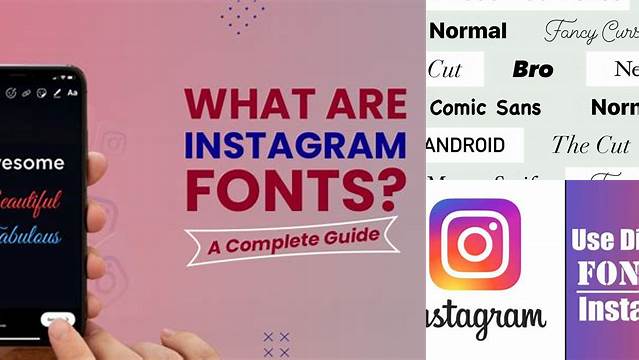
Cool Fonts & Symbols For Instagram: Ultimate Guide
Instagram is more than just photos; it's a whole vibe! And a big part of that vibe comes from how you present your text. Using cool fonts and symbols can really make your posts and stories pop. But let's be real, Instagram's built-in font options are kinda limited. That's where font generators and symbol keyboards come in clutch. In this guide, we will dive deep into the world of Instagram fonts and symbols, showing you how to spice up your profile and content.
Why Use Different Fonts and Symbols on Instagram?
Let's talk about why you should even bother changing up your fonts and adding symbols in the first place. In the crowded world of Instagram, standing out is key. Using unique fonts and symbols can grab attention and make your content more memorable. Think of it as adding your personal touch to everything you share.
Making Your Profile Stand Out
Your Instagram bio is like your digital handshake. It's often the first thing people see when they visit your profile. Using a stylish font can make your bio more eye-catching and give people a better sense of who you are. Imagine a sleek, modern font for a tech brand or a playful, cursive font for a lifestyle blogger. The right font can instantly communicate your brand's personality.
Enhancing Engagement
Fonts and symbols aren't just for looks; they can also boost engagement. Using different fonts in your captions can break up large blocks of text and make them more readable. Symbols can add visual interest and highlight important information. For example, you might use a star symbol to emphasize a key point or an arrow to direct people to a link in your bio. When your content is visually appealing and easy to read, people are more likely to engage with it.
Expressing Creativity
Instagram is all about creativity, and fonts and symbols are just another way to express yourself. Whether you're creating stories, writing captions, or designing highlights covers, using unique fonts and symbols can help you showcase your personal style. Don't be afraid to experiment and try new things. The more creative you are, the more you'll stand out from the crowd.
Top Font Generators for Instagram
Alright, let's get into the good stuff. Here are some of the best font generators you can use to create cool text for your Instagram profile and posts. These tools are super easy to use, and they offer a ton of different font options.
LingoJam
LingoJam is a classic choice for generating Instagram fonts. It's simple, straightforward, and offers a wide variety of fonts to choose from. Just type your text into the input box, and LingoJam will instantly generate a bunch of different font options. You can then copy and paste your favorite font into your Instagram bio, caption, or story.
Cool Font
Cool Font is another popular font generator that offers a wide range of stylish fonts. It also includes a bunch of symbols and emojis that you can use to spice up your text. The interface is clean and modern, making it easy to find the perfect font for your needs.
- Pros: Modern interface, lots of font options and symbols, easy to copy and paste.
- Cons: Some fonts may not be compatible with all devices, and the site can be a bit slow at times.
Instagram Fonts
Instagram Fonts is a dedicated font generator specifically designed for Instagram. It offers a curated selection of fonts that are guaranteed to work on Instagram. The interface is clean and simple, making it easy to find the perfect font for your profile.
- How to Use: Type your text into the input box, and Instagram Fonts will generate a list of compatible fonts. Simply copy and paste the font you like into your Instagram bio or caption.
- Pros: Specifically designed for Instagram, guaranteed compatibility, clean interface.
- Cons: Fewer font options compared to other generators.
FontGet
FontGet is a comprehensive font resource that offers a wide variety of fonts for all your design needs. While it's not specifically designed for Instagram, you can easily find fonts that work well on the platform. The site also includes a bunch of tutorials and resources to help you choose the right font for your project.
- How to Use: Browse through the font categories or use the search bar to find a specific font. Once you've found a font you like, download it and install it on your device. You can then use the font in your Instagram posts and stories.
Using different fonts and symbols on Instagram is a great way to make your profile and content stand out. By using the right tools and following the tips in this guide, you can create a unique and engaging Instagram presence that attracts followers and boosts engagement. So go ahead, experiment with different fonts and symbols, and see what works best for you. With a little creativity, you can transform your Instagram profile into a visual masterpiece. Remember, consistency, readability, and device compatibility are key to making the most of your new fonts and symbols. Happy posting, guys!